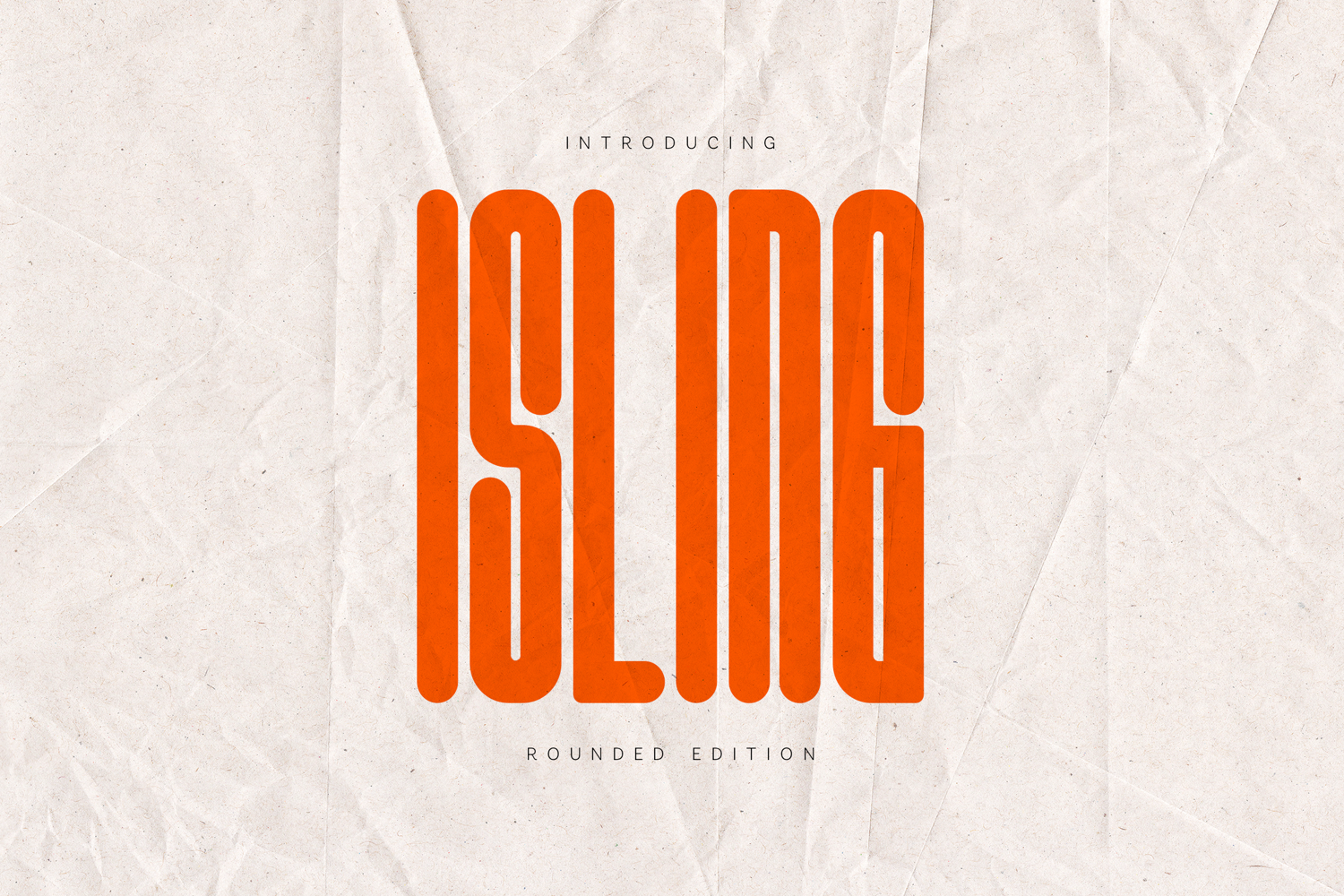
Aisling Condensed Display Font Family
Aisling is a bold and elegant condensed display font family crafted for impactful headlines and contemporary branding. With its tall proportions, clean vertical rhythm, and strong geometric structure, Aisling delivers a modern statement while maintaining clarity and balance.
Designed for versatility, Aisling includes three powerful styles: Regular, Outline, and Rounded. Whether you’re creating striking posters, bold logos, editorial layouts, packaging, or social media graphics, this typeface adapts effortlessly to both minimal and expressive design directions.
Its narrow construction makes it perfect for space-efficient layouts without sacrificing presence, making it ideal for high-impact typography in both digital and print environments.
Aisling is built for designers who want strong vertical impact, modern aesthetics, and versatile condensed typography for standout creative work.